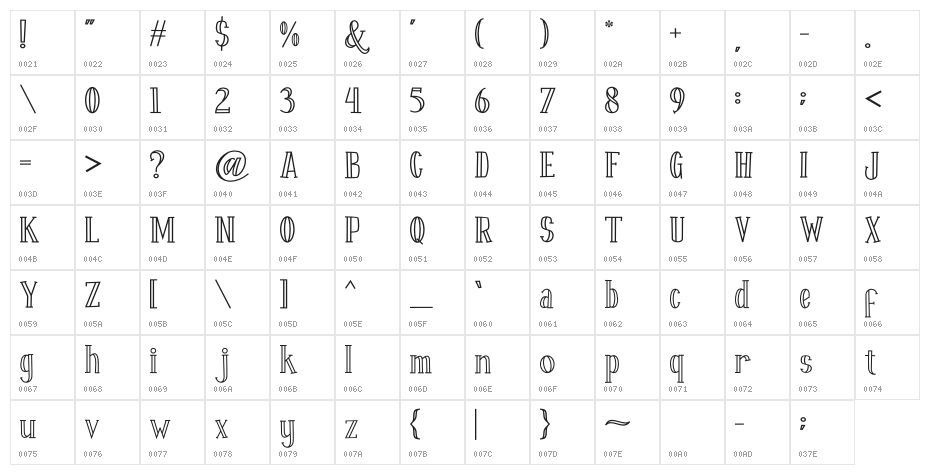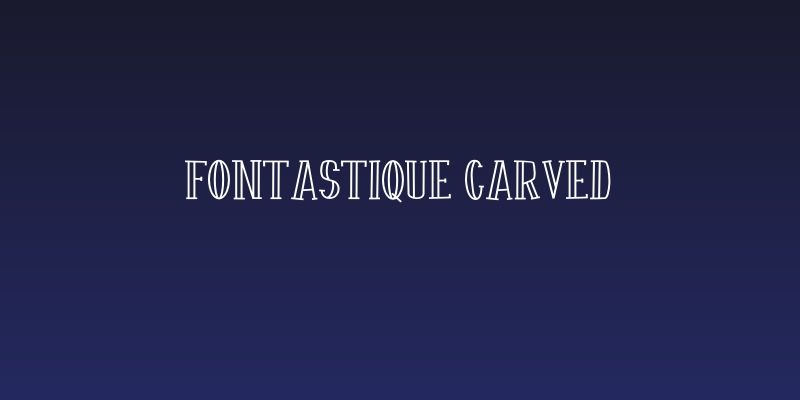
Fontastique Carved Font
Fontastique Carved Description
This font features a unique carved appearance with a decorative flair. The uppercase letters are tall and narrow, with distinct vertical lines that give a sense of elegance and sophistication. The lowercase letters maintain a similar style, with some characters having playful curves and loops. The numbers are bold and consistent with the overall design, making them easily readable. Special characters are creatively designed, adding to the font's artistic appeal. The overall look is both modern and vintage, suitable for a variety of creative projects.
| Overall Style | Modern, Vintage |
| Proposed Projects | Ideal for branding, posters, invitations, and artistic projects requiring a distinctive and elegant touch. |